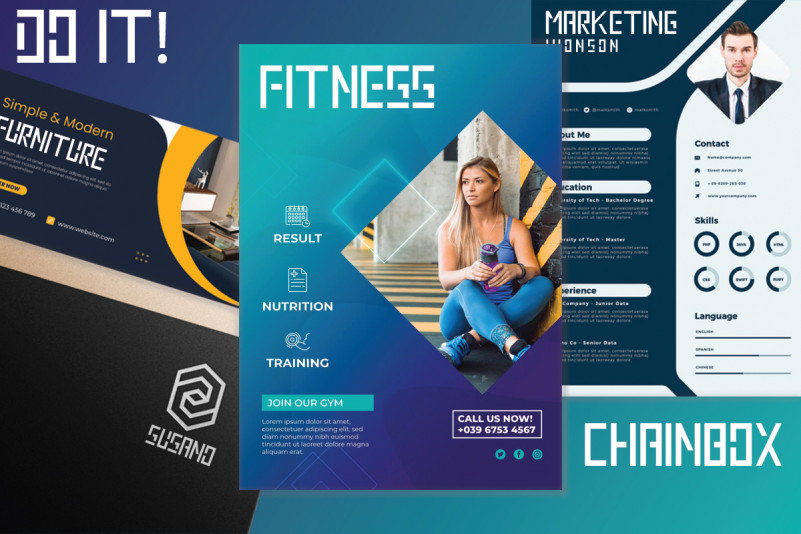
Chainbox Display Font
This is a display modern sans serif font family, designed by Rais Project. The font is free for commercials and other uses, it is Technology, Game, Magazine, Music, Sport etc